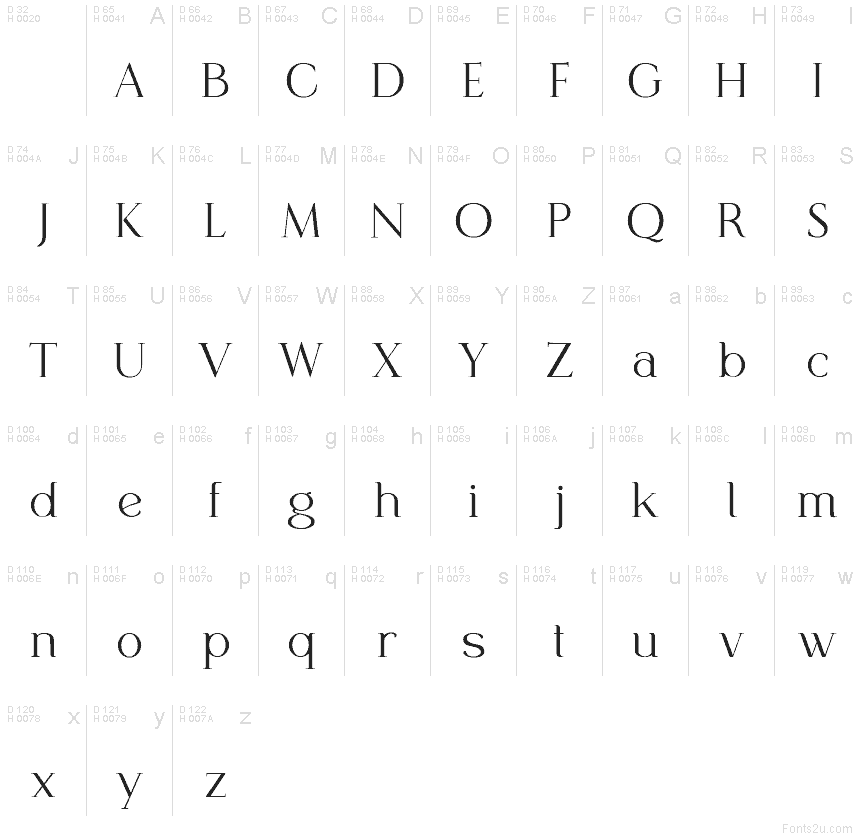
Mophend
Mophend font by Typebae Foundry is an elegant serif typeface with high contrast and a refined look. Its classic appearance combines ageless traditions with modern detail, geometry, and familiar styles. Gentle serifs cap each stroke while smooth curves make the glyphs feel fluid and inviting.
This free serif font is suitable for headings, product packaging, magazine covers, typography art, posters, title sequences for films or series! It can also be used to write quotes on images or to design business cards.